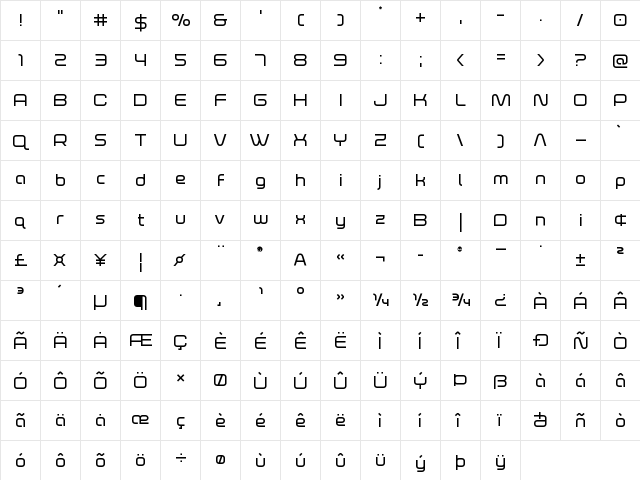
Fox on the Run Regular
Design Context for Fox on the Run Typeface
Fox on the Run takes a measured approach to typography — its balanced proportions and neutral character make it a reliable workhorse for both digital and print work.